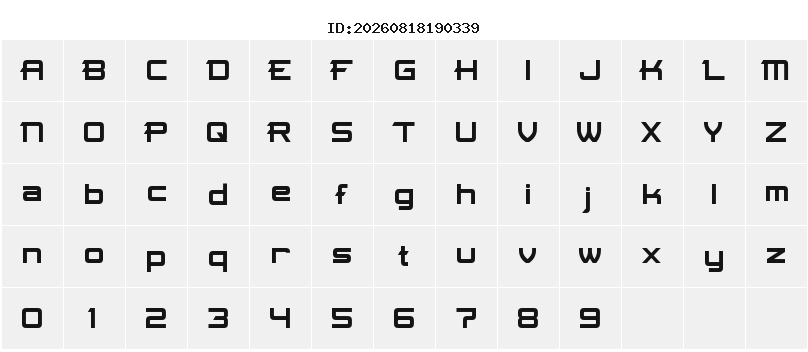
Skir Preview
• Font Name: Skir
• Full Font Name: Skir
• Designer: Neale Davidson
About Skir.ttf
Skir.ttf is a modern, elegant sans-serif font designed for ultimate readability and visual harmony. Perfect for branding, headlines, web design, and print materials.